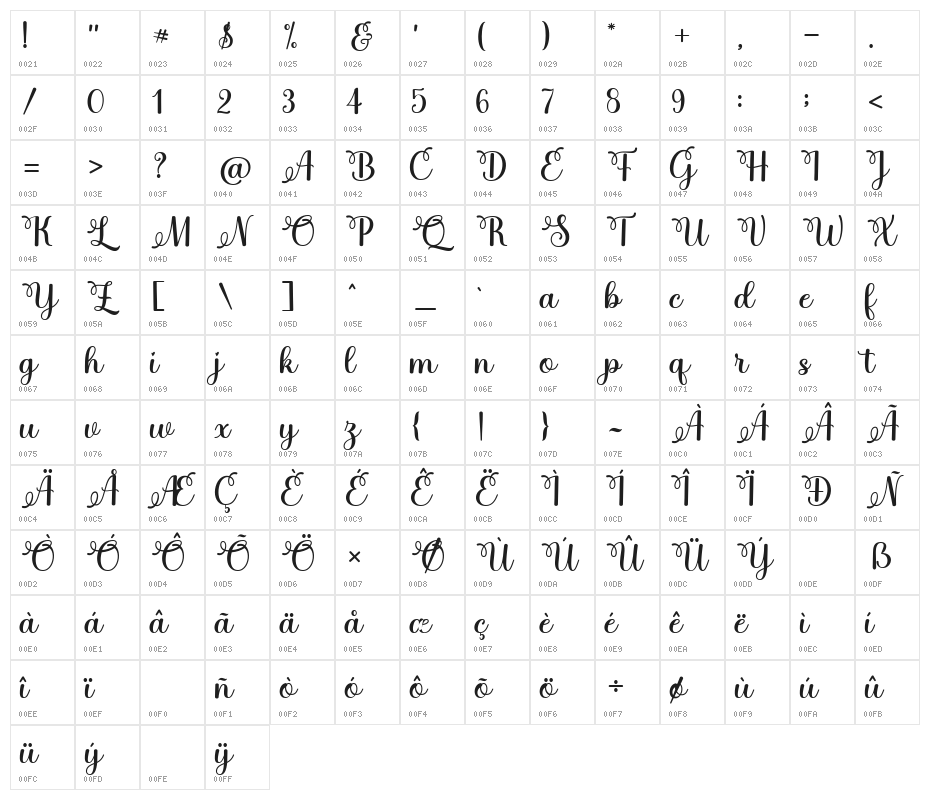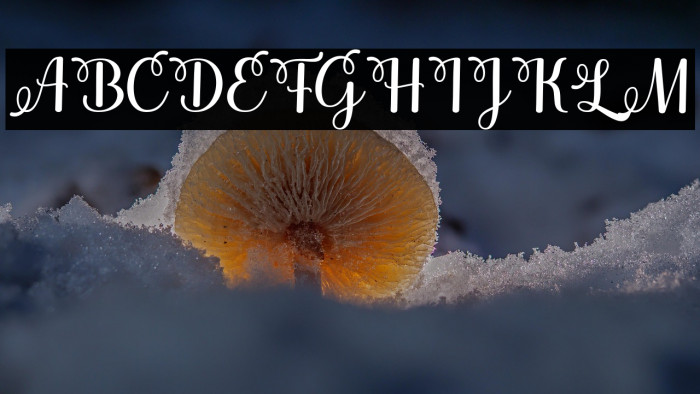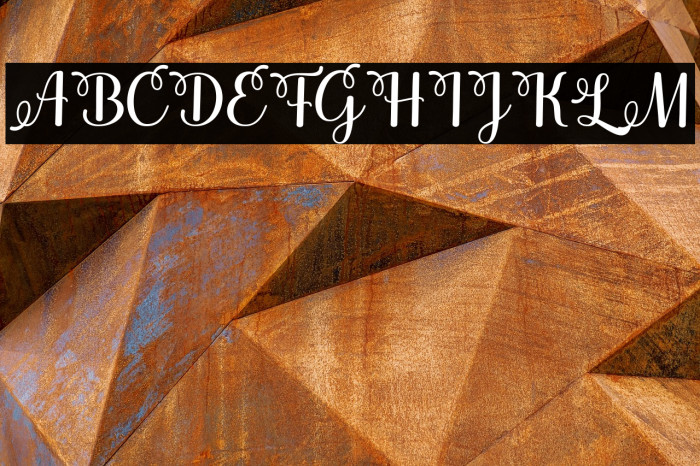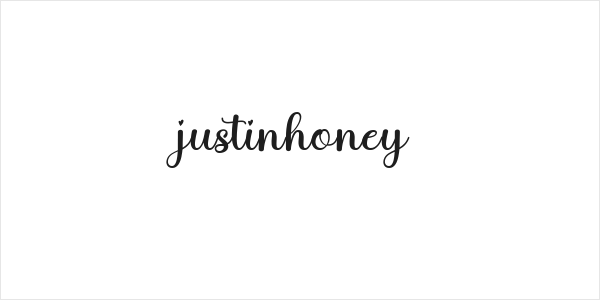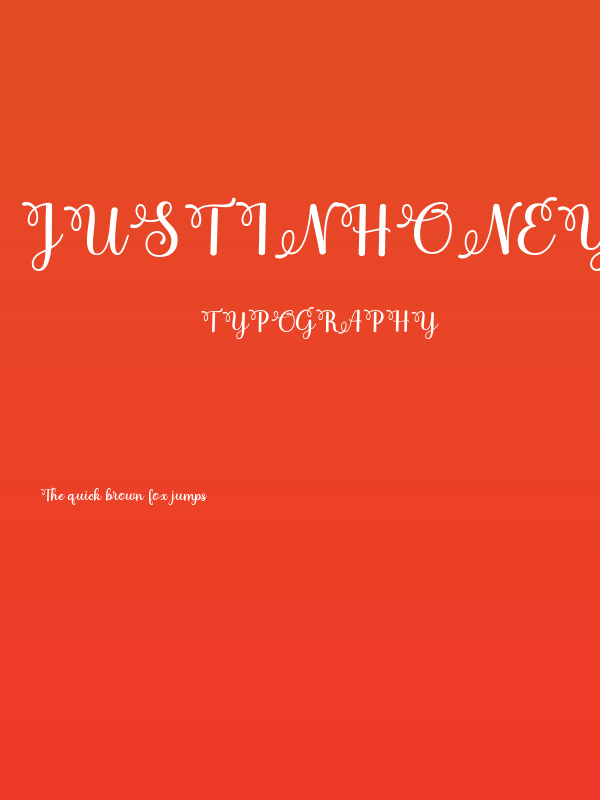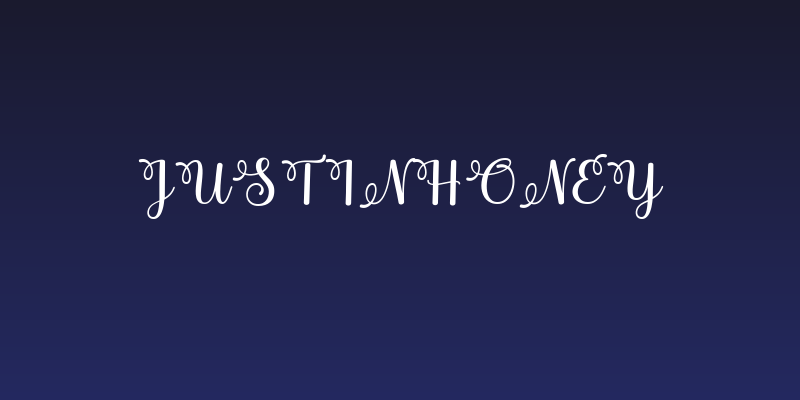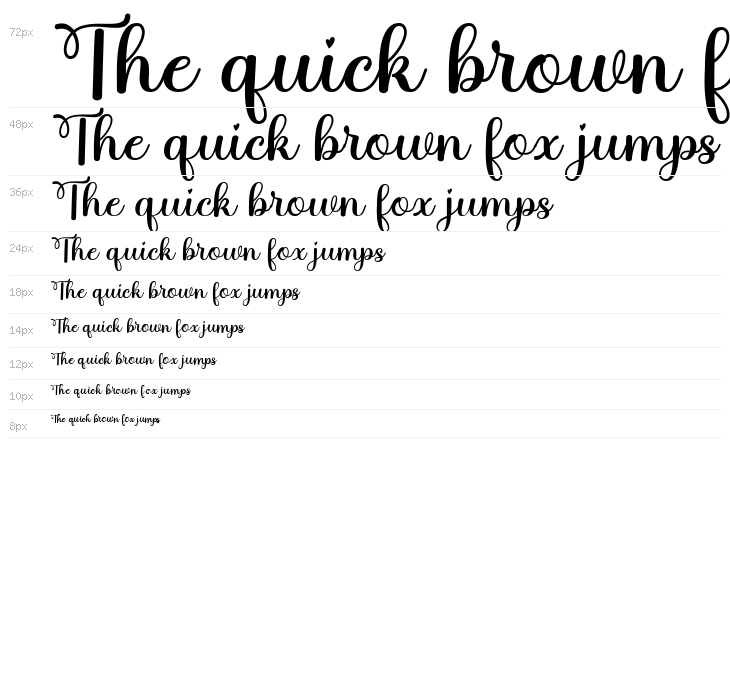
justinhoney Font
justinhoney Description
This font features a playful and elegant script style with a handwritten feel. The uppercase letters are characterized by decorative swirls and loops, adding a touch of whimsy and sophistication. The lowercase letters maintain a consistent flow, with smooth curves and a slight slant, enhancing the font's graceful appearance. The numerals are clear and legible, complementing the overall design. Special characters are thoughtfully integrated, maintaining the font's cohesive aesthetic. This font is ideal for projects that require a personal and artistic touch, such as invitations, greeting cards, and branding materials.
| Use Case | Headlines, Logos, Artistic projects |
| Proposed Projects | Ideal for invitations, greeting cards, branding, and artistic projects. |